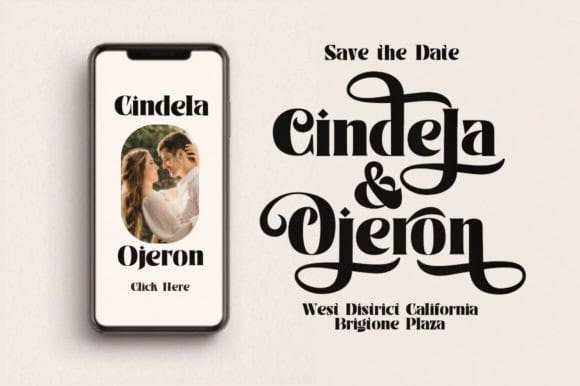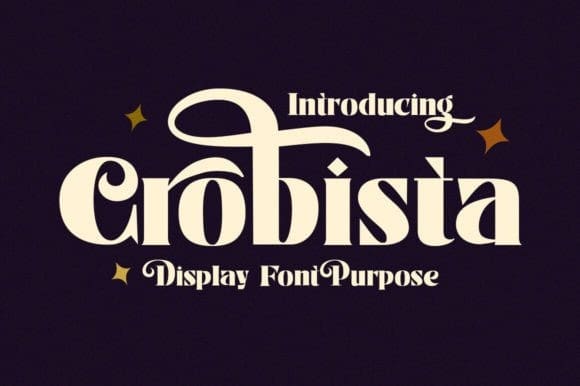
Crobista Font
Crobista Font is a versatile font with a clean, sleek shape. The overall typeface is strong to bring order and harmony between letters. Best used as Instagram, poster, web design, magazine, logo or product.